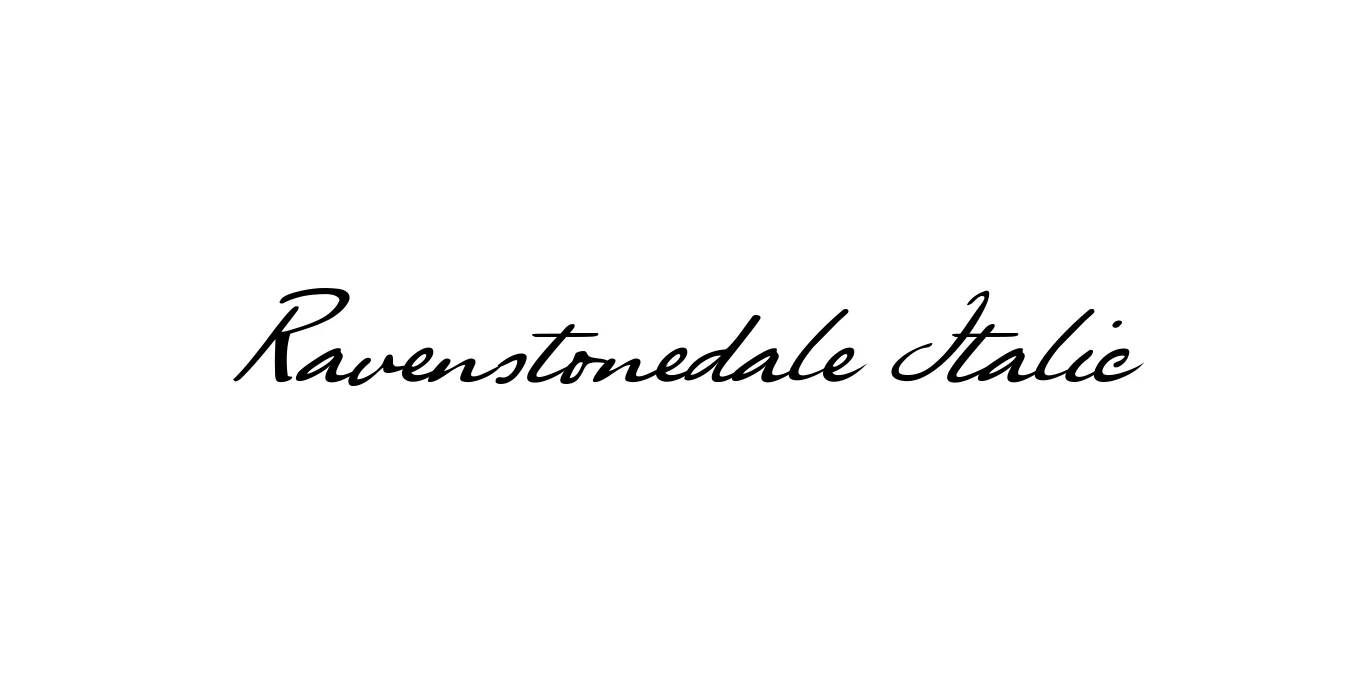
Ravenstonedale Italic
Designed by Jonathan Hill
Ravenstonedale Italic is an elegant, hand-lettered script typeface designed by Jonathan Hill of The Northern Block. Drawing inspiration from the traditional signwriting found in the village of Ravenstonedale in the English Lake District, this font captures a unique blend of heritage and contemporary fluid movement. The strokes are characterized by an organic, brush-like quality that conveys a sense of authenticity and human touch, making it stand out in a digital world.
The technical structure of Ravenstonedale Italic ensures that it maintains high legibility even with its decorative flair. The italicized slant provides a rhythmic flow that is perfect for sophisticated branding, editorial headers, and artisanal packaging. Its versatile nature allows it to bridge the gap between vintage charm and modern sophistication, providing designers with a tool that feels both timeless and personal.
Ravenstonedale Italic Best Uses
Ideal for creating unique, high-end logos and brand identities.
Perfect for artisanal, craft, or organic product labeling.
Excellent for pull-quotes, titles, and stylized magazine headers.
Adds a sophisticated and personal touch to wedding and event stationery.